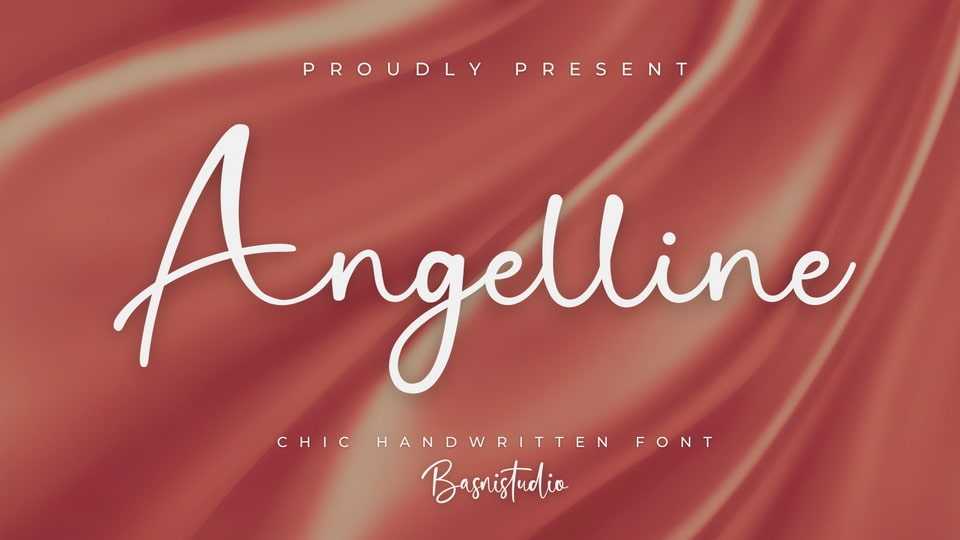
Download Angelline font, a lovely crafted handwritten typeface that adds a natural, versatile touch to everything from branding and social media to invitations and packaging.